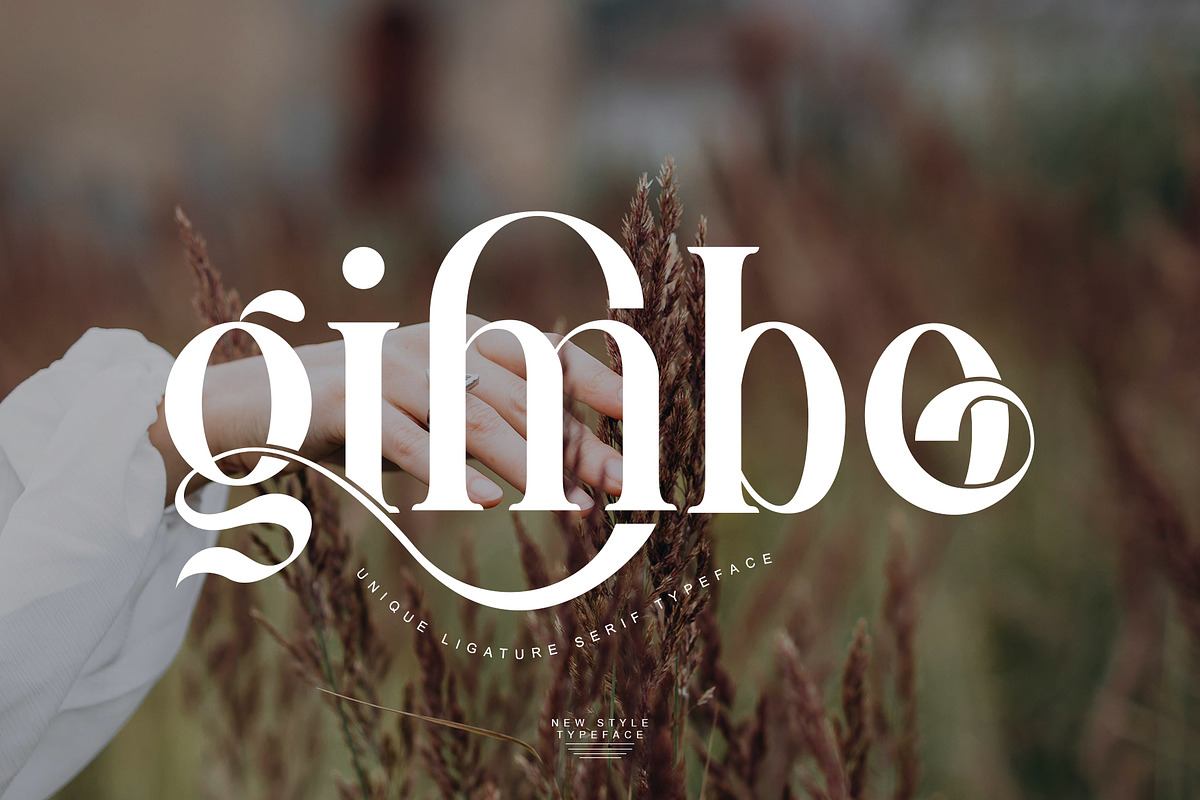
Gimbo Ligature Serif Typeface Free Download
Gimbo Ligature Serif Typeface Free Download is a modern and artistic serif font featuring elegant curves, high contrast strokes, and a rich collection of stylish ligatures. Designed to make your typography stand out, Gimbo is perfect for fashion branding, editorial layouts, luxury packaging, logos, and wedding stationery.
With its sophisticated presence and unique ligature combinations, Gimbo Ligature Serif Typeface Free Download brings a fresh, designer feel to any project. The font strikes a perfect balance between classic beauty and contemporary creativity, making it ideal for both bold headlines and refined text.